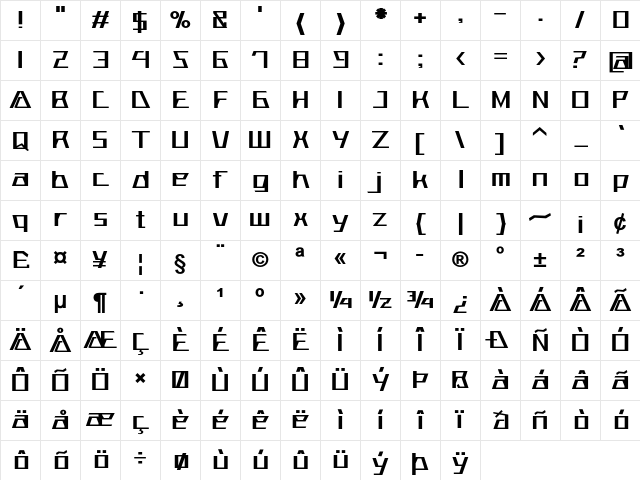
Anaxas Bold
Design Context for Anaxas
Anaxas is a composed and adaptable typeface that performs quietly and consistently across a wide range of design contexts. Its bold stroke weight gives it real presence on the page.